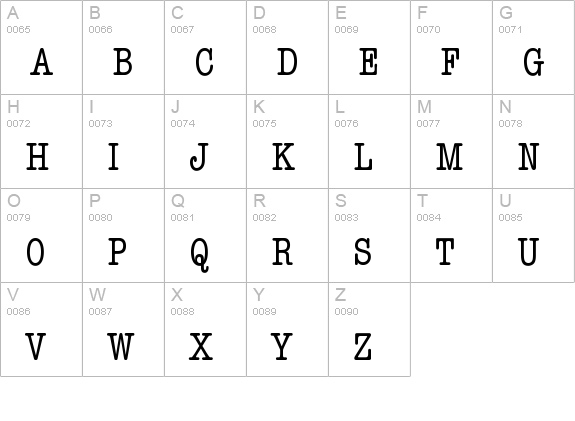
AmTypewriterEF-MedCond Font Details
Introducing AmTypewriterEF-MedCond font, a versatile and stylish typeface perfect for a wide range of design projects. This unique font combines the classic look of a typewriter with a modern twist, making it ideal for creating a retro yet contemporary feel. With its medium condensed style, AmTypewriterEF-MedCond is easy to read and works well in both large headlines and small body text. What's even better is that AmTypewriterEF-MedCond font is available for free download at FontsMarket.com. Whether you're working on a vintage-inspired poster, a sleek website design, or a creative branding project, this font is sure to add a touch of character and charm. Don't miss out on the opportunity to enhance your designs with the timeless appeal of AmTypewriterEF-MedCond font. Download it today and let your creativity shine!